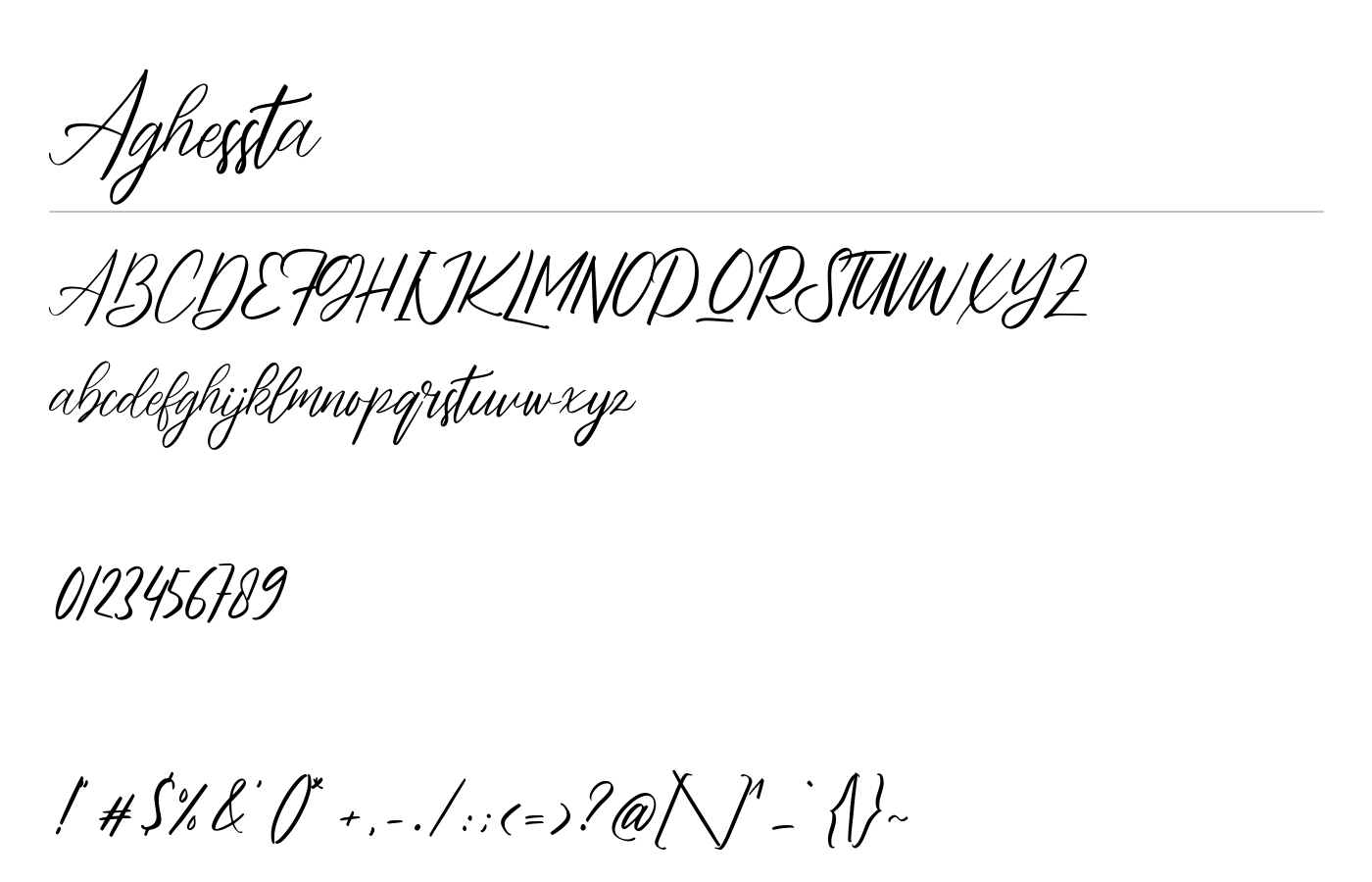
Aghessta is a delicate, elegant script font featuring slender, flowing letterforms that mimic natural handwriting with a graceful and refined touch. Its light weight and slightly condensed style make it perfect for sophisticated branding, invitations, and stylish headlines, adding a personal yet polished feel to any design. This font works well where a sense of charm and subtle luxury is desired without overwhelming the viewer.
Aghessta Font
About Aghessta Font